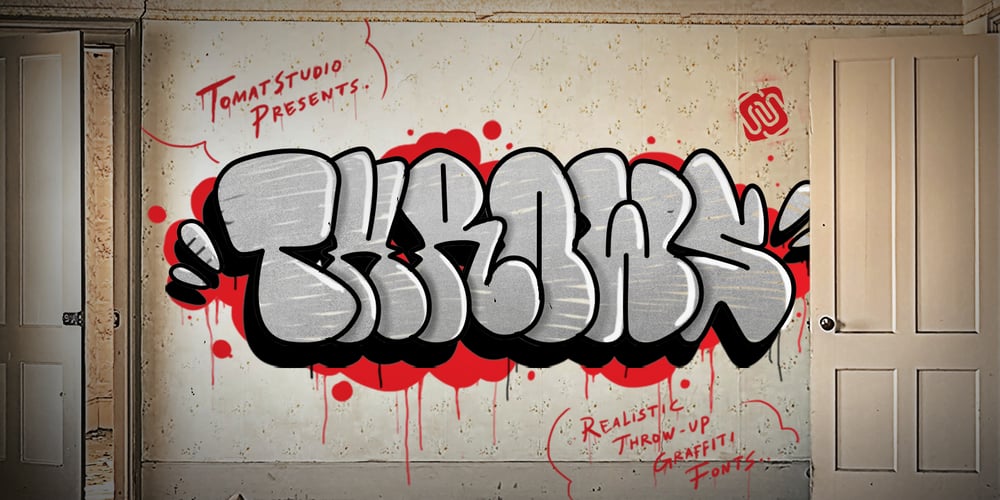
Throws Font Family was designed by Cipto Bagus Prakarso and published by Tomatstudio. Throws contains 2 styles and family package options. This is not an ordinary fonts, this is how the real throw up graffiti come into fontype! if you want real throw ups style graffiti fonts, this is the answer! because this is pure from my real graffiti eperiences around the streets.Kerning, spacing i adjust more tight, similar with the real throw up in the streets. The intersection between letter also you can erase it or leave it collide, depends of whats your styles, see our tutorial in the picture slides.I hope you guys like it, cheers!